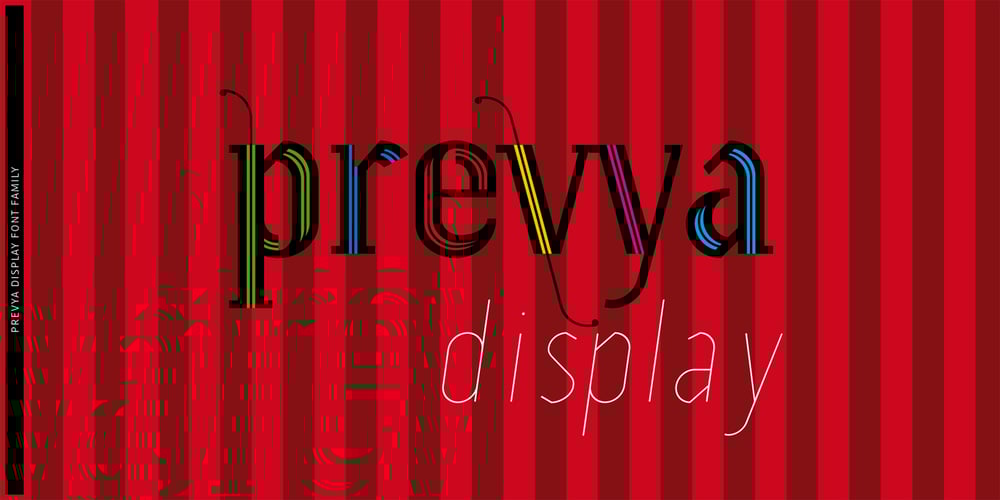
Prevya Display Font Family was designed by Vicente Lamónaca and published by TipoType. Prevya Display contains 5 styles and family package options. Prevya is a display family. Inspired by the metalwork of the early twentieth century. Have appropriate characteristics for ornamental titles. Is accompanied by a light version for featured texts and it has a shadow layer to combine in beautiful designs.